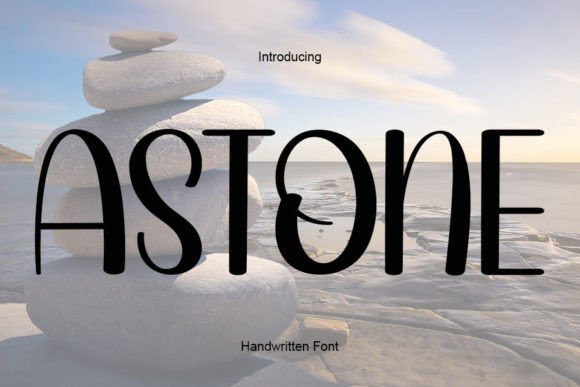
Welcome, font enthusiasts and tattoo art lovers! Allow us to introduce you to Astone Font, a captivating script font family that will transform your creative ventures into mesmerizing masterpieces. Crafted by the talented hands of putrasyahreza00, Astone's elegant touch and timeless charm are ready to elevate your designs to new heights.
Unleash your creativity with Astone's graceful strokes and impeccable details. Whether you're a professional designer, a passionate artist, or a creative entrepreneur, this font will become your go-to choice for projects that demand a touch of sophistication and individuality. From eye-catching logos and branding to stunning invitations and social media graphics, Astone will add a touch of elegance to every project.
Imagine your designs adorned with Astone's beautiful characters, flowing effortlessly across your canvas. Its neat and meticulously crafted lines create a harmonious visual appeal that captivates the eyes and leaves a lasting impression. Dive into the world of tattoo script artistry with Astone, a font that turns ordinary text into exceptional works of art.